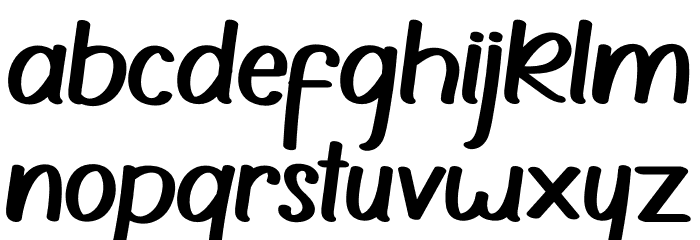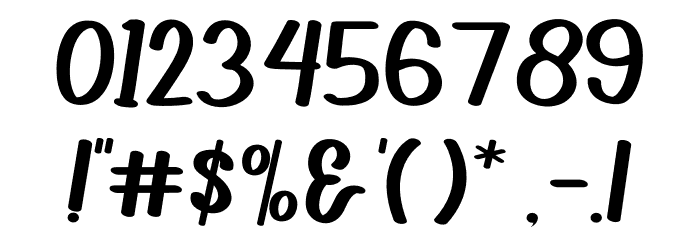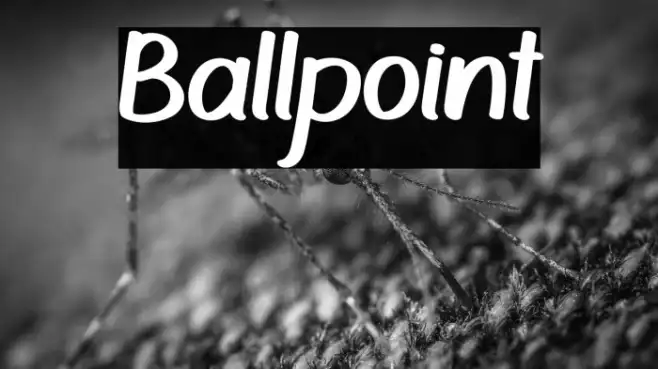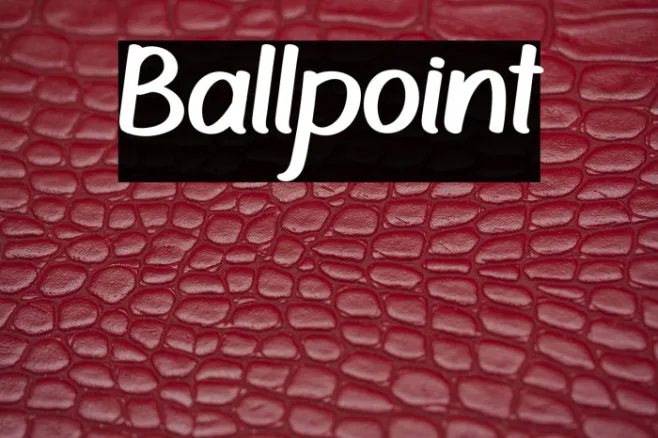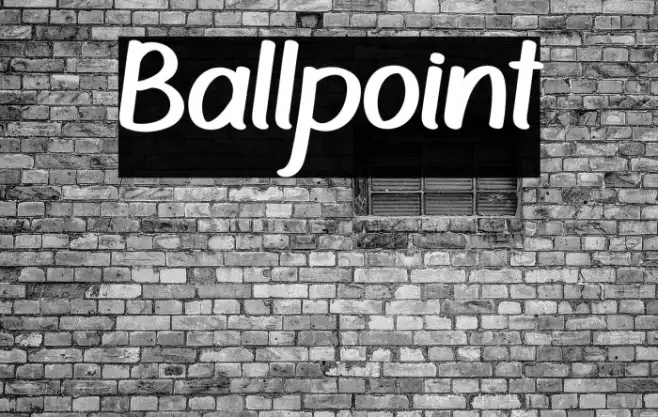
Ballpoint Font
This font exudes a playful and casual vibe, reminiscent of handwriting with a ballpoint pen. The characters are rounded and smooth, with a consistent stroke width that gives it a uniform appearance. The uppercase letters are bold and slightly slanted, adding a dynamic feel, while the lowercase letters maintain a friendly and approachable style. The numerals and special characters are crafted with the same attention to detail, ensuring readability and a cohesive look across all text. This font is perfect for projects that require a personal touch, such as invitations, greeting cards, or informal branding.
A playful, handwritten-style font with smooth, rounded characters.
- Font: Ballpoint
- Proposed Projects: Ideal for invitations, greeting cards, personal branding, and informal designs.
- Category: Handwritten
- Overall Style: Casual, Playful
- Use Case: Headlines, Logos, Informal Text